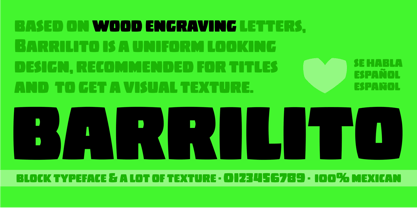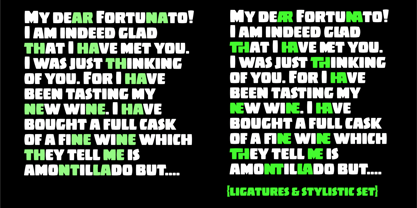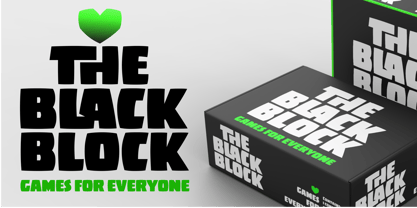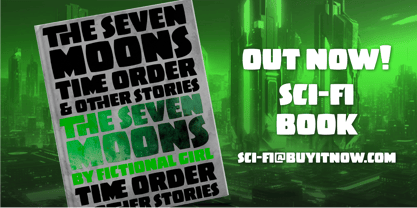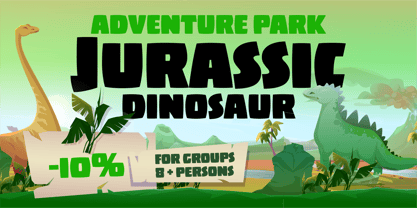
Barrilito
by Cocijotype
The Barrilito Font Family
was designed by
Elí Castellanos
and published by
Cocijotype. Barrilito contains
1
styles.
Based on wood engraving letters, Barrilito is a uniform looking design, recommended for titles and to generate a visual texture, its bloated letters give a compact sensation. Barrilito has a lot of ligatures allowing to have a wide scope of options to set a block title text, this typeface is a great option for striking short sentences and single words. Barrilito comes with TT hinting for better performance on screens.